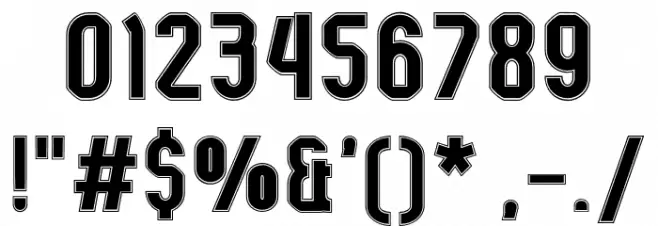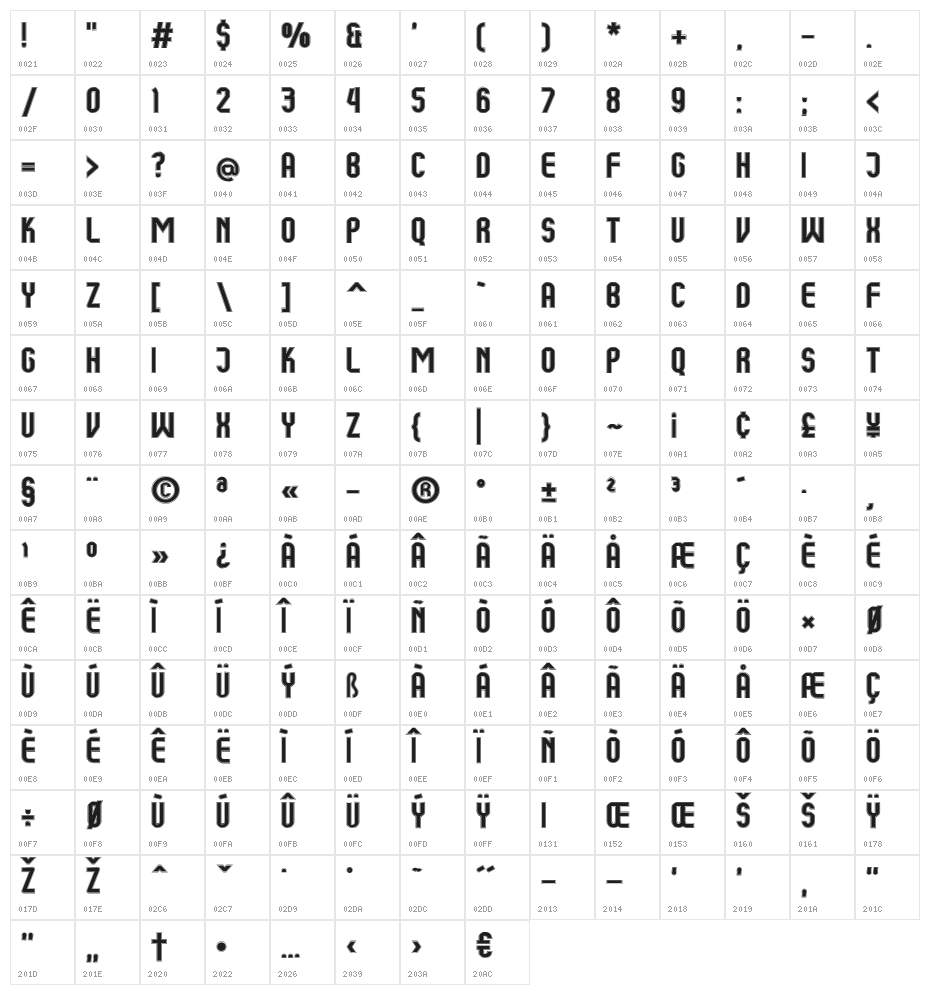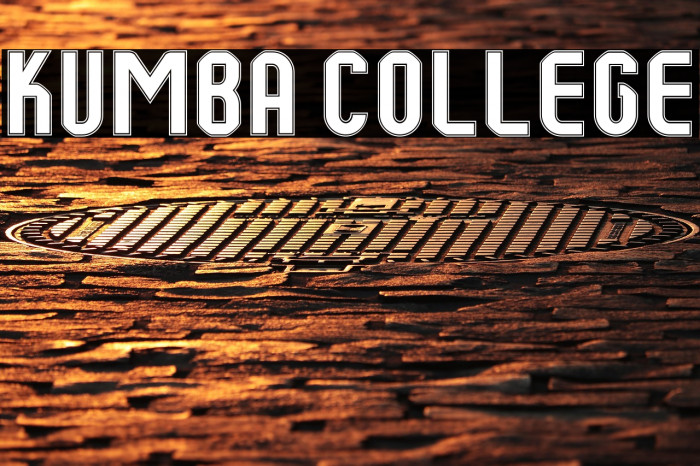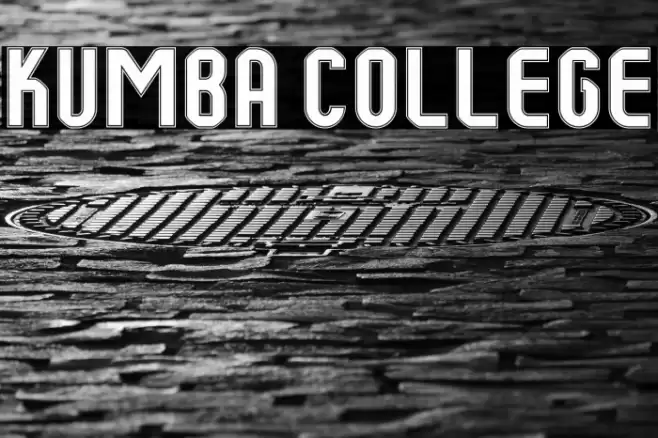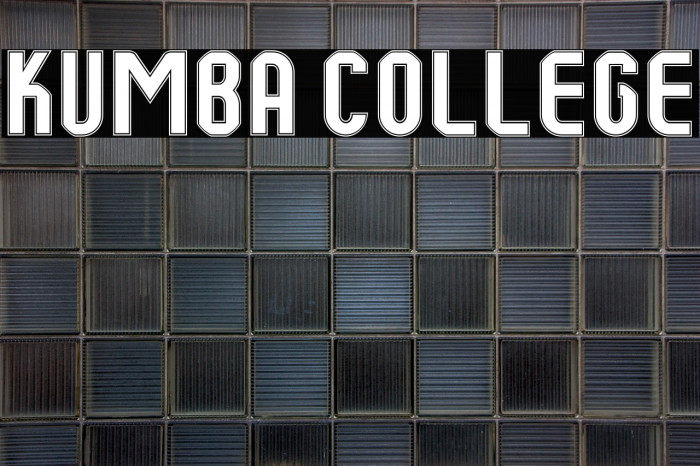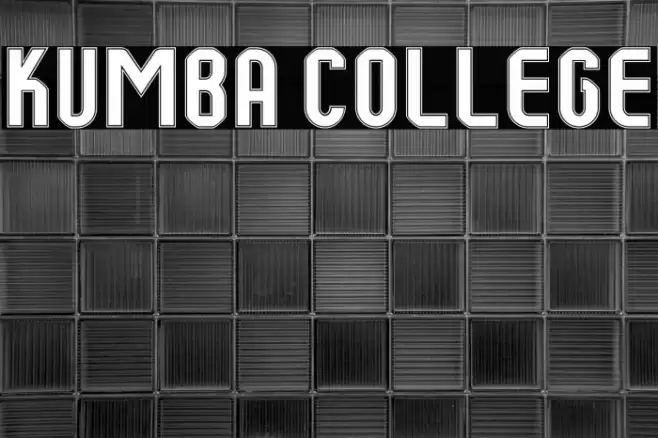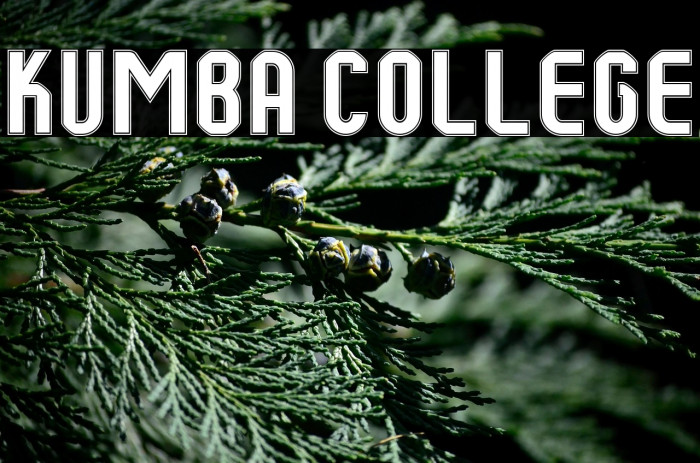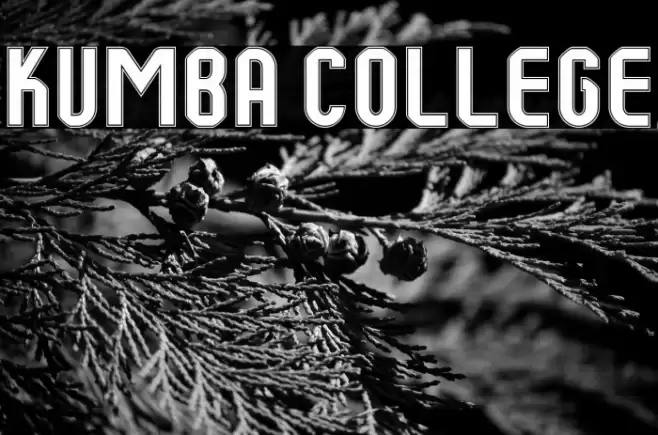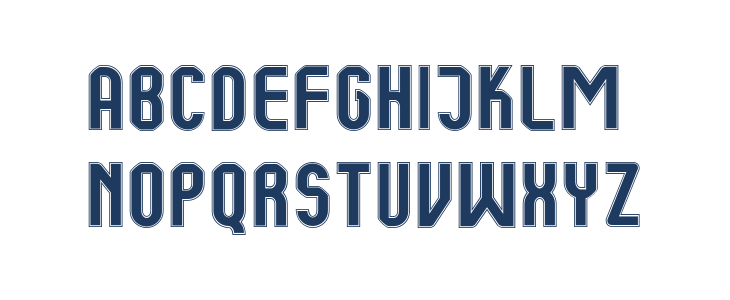
Kumba College Font
Kumba College Description
This font features a bold and geometric design with a strong presence. The characters are outlined, creating a striking contrast between the thick, solid strokes and the inner negative space. The uppercase and lowercase letters share a consistent style, emphasizing uniformity and balance. The numerals are equally bold, maintaining the font's cohesive look. Special characters are designed with the same attention to detail, ensuring they fit seamlessly with the rest of the typeface. The overall appearance is modern and assertive, making it suitable for attention-grabbing headlines and impactful designs.
| Proposed Projects | Ideal for branding, posters, headlines, and any design requiring a strong visual impact. |